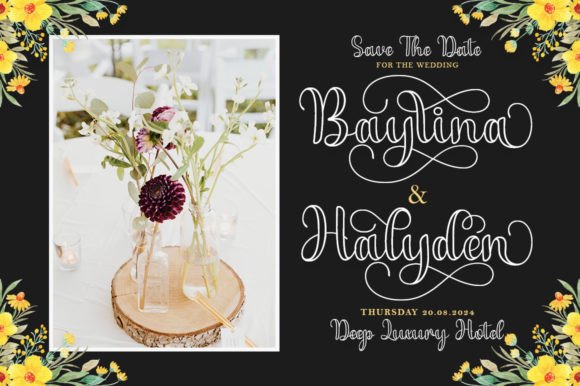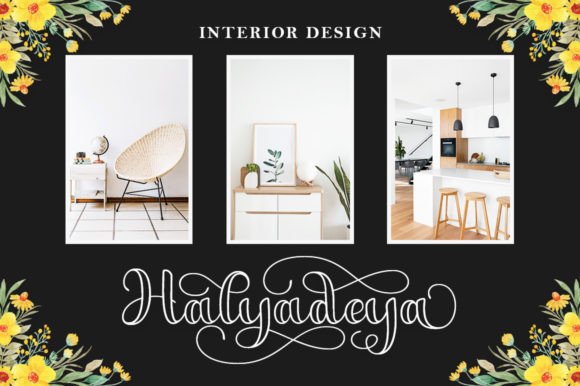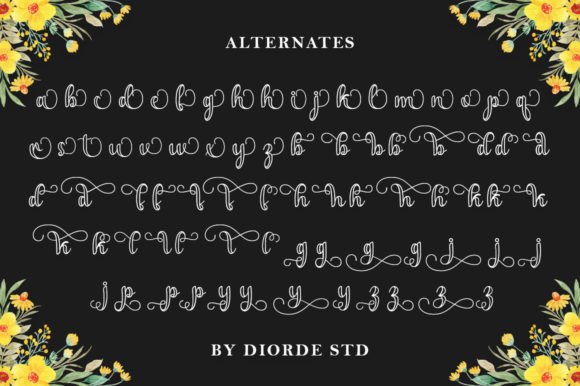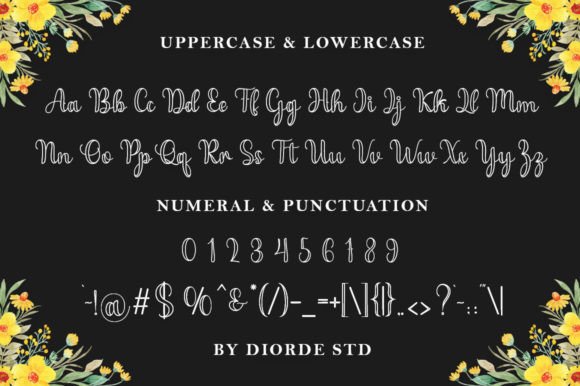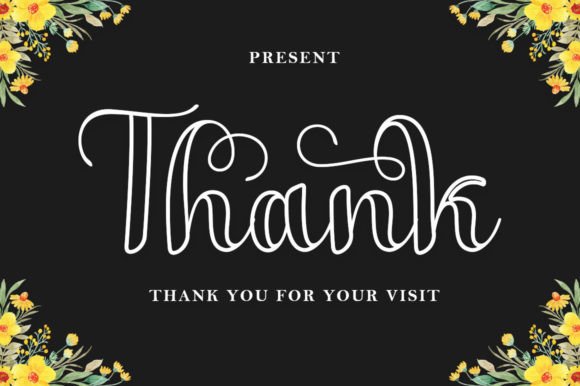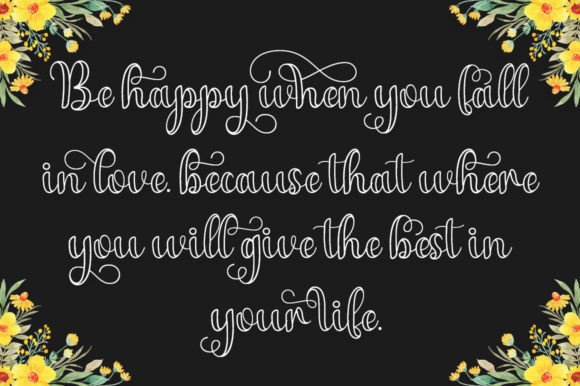
Have you ever stared at a blank page, trying to bring your latest design idea to life, only to be met with a sea of blank space and a mind full of blank thoughts? It’s a feeling we’ve all been there, but it’s also the spark that sets our creativity ablaze. For designers, the right font can be the missing piece that turns a good idea into a great one.
Enter the Aeylina Outline Font, a charming and versatile handwritten font that’s sure to bring a touch of warmth and personality to any project. With its PUA coding, you’ll have access to all the glyphs and swashes you need to create unique and eye-catching designs. Whether you’re working on a wedding invitation, a children’s book, or a social media campaign, the Aeylina Outline Font is the perfect choice for designers looking to add a little extra something special to their work.
Aeylina Outline Font Key Features
- Unique Characteristics: Aeylina Outline Font features a unique blend of modern and elegant design elements, with intricate details and subtle flourishes that add a touch of sophistication to any design.
Aeylina Outline Font Review
I recently had the chance to work with the Aeylina Outline Font, and I must say it’s a unique and intriguing addition to any design project. ✨ The font’s clean and minimalist aesthetic makes it perfect for creating visually appealing headings and titles.
- The Aeylina Outline Font has a great balance of modernity and elegance, making it suitable for a wide range of design applications.
- The font’s outline design creates a nice visual hierarchy, drawing attention to the text it surrounds.
- The font is highly customizable, allowing designers to adjust the stroke width, color, and other parameters to suit their specific needs.
However, I did encounter a few limitations ⚠️:
- The font’s outline design can sometimes make the text appear less legible, especially at smaller font sizes.
- The font may not be the best choice for body text, as it can be quite distracting and overwhelming.
- The font’s limited character set may not include all the symbols and special characters designers need.
Overall, I think the Aeylina Outline Font is a solid choice for designers looking to add a touch of modernity and sophistication to their projects. While it may not be suitable for all design applications, it’s definitely worth considering for headings, titles, and other visual elements.
Aeylina Outline Font Practical Application Guide
Tips for Getting the Most Out of Aeylina Outline Font
Use Aeylina Outline Font for titles, headings, and other text elements where you want to create a bold and eye-catching effect.
Pair the font with a solid background or a subtle texture to enhance its impact.
Experiment with different font sizes and styles to create visual interest and hierarchy in your design.
Aeylina Outline Font is ideal for:
Designing posters, flyers, and other promotional materials.
Creating bold and eye-catching titles and headings.